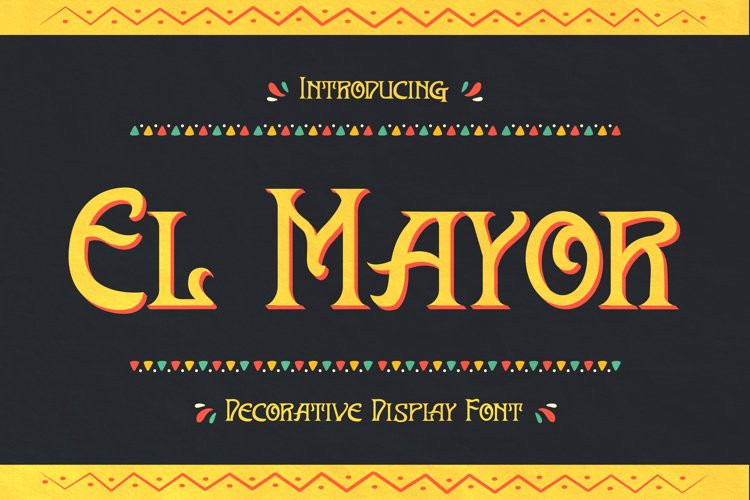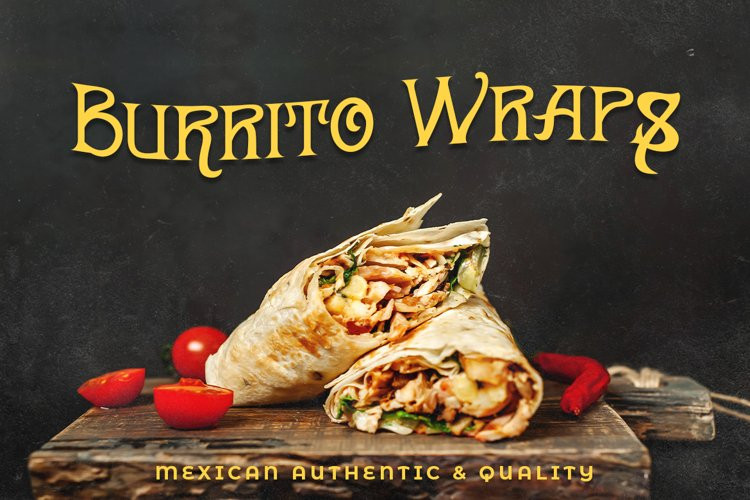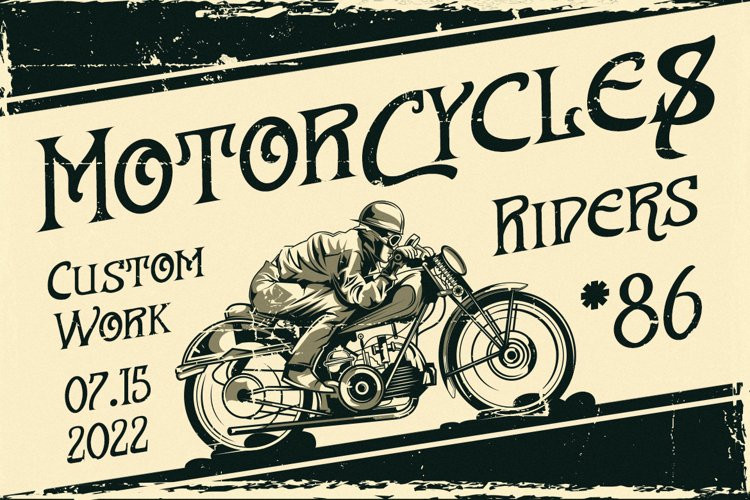
El Mayor Font
El Mayor FontEl Mayor is a decorative display font. The font has festival vibes.
It will turn any design project into a stand out.
El Mayor font is really great for a restaurant menu, business branding, clothing, quotes, headings, birthday invitations, posters, and many others.